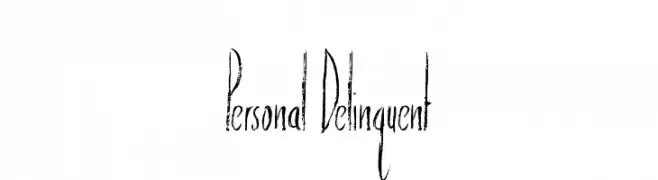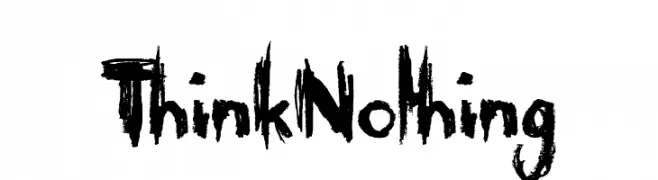
( Fonts by Jonathan S. Harris )
A grungy, narrow font with a distressed, handmade appearance.
( Fonts by Jonathan S. Harris )
A bold, dripping font with a grungy, horror-inspired aesthetic.
( Fonts by Jonathan S. Harris )
A bold, brush-style font with dynamic and rugged strokes.
An elegant and flowing script font with ornate uppercase letters and delicate embellishments.
A decorative and artistic font with intricate, flowing letterforms and a modern, edgy style.
( Fonts by Jonathan S. Harris )
A bold, jagged font with an edgy, brush-like appearance.
( Jonathan S. Harris - www.tattoowoo.com )
A dynamic and fluid script font with elegant, flowing letterforms and high contrast.
( Jonathan S. Harris - www.tattoowoo.com )
A playful, handwritten-style font with irregular strokes and spacing.
( RaseOne Full Time Artists - www.graffitifonts.com )
A bold, graffiti-inspired font with intricate, angular designs.
( Vladimir Nikolic - www.coroflot.com/vladimirnikolic )
Ornate, hand-drawn esoteric symbol dingbats in a vintage tattoo style.